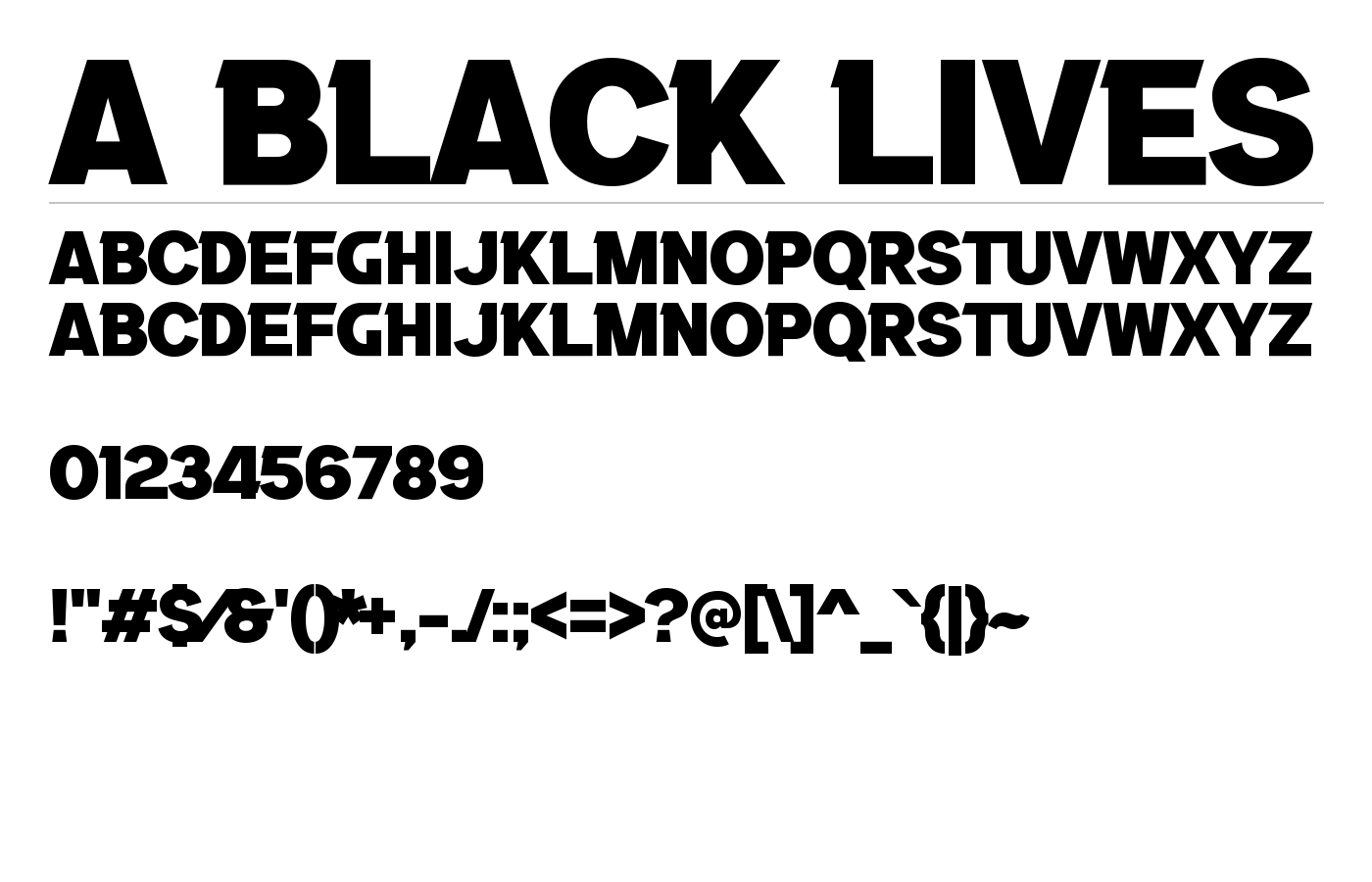
a Black Lives Font is a bold, condensed sans serif typeface with strong, solid letterforms that command attention. Its high weight and tight spacing create a powerful and assertive feel, making it ideal for impactful headlines, posters, and branding that require a modern and confident presence. The font’s straightforward, geometric style makes it perfect for conveying strength and clarity in social and cultural messaging.
a Black Lives Font
About a Black Lives Font
| Font family | a Black Lives Font |